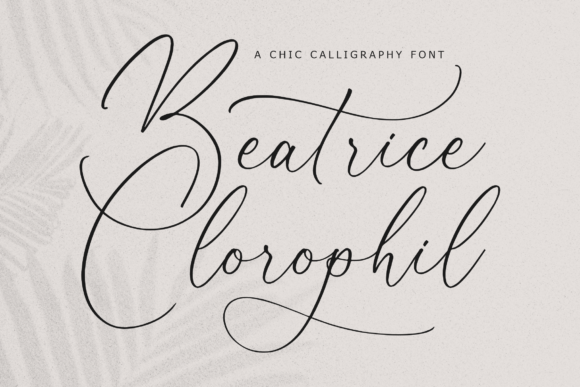
Welcome to the world of Beatrice Clorophil, the dazzling script font that will transform your interior design projects into breathtaking masterpieces. Step into a realm where elegance and creativity intertwine, creating a symphony of visual delight.
Beatrice Clorophil is not merely a font; it's an artistic expression, a testament to the power of typography to elevate your designs to new heights. Its neatly crafted curves and intricate details are a testament to the artistry and dedication of Storytype Studio, the masterminds behind this typographic gem.
With Beatrice Clorophil, you'll embark on a journey of limitless possibilities, where your imagination becomes the architect of stunning interiors. Whether you're crafting brochures, flyers, posters, or social media graphics, this font will effortlessly elevate your message, leaving an indelible mark on your audience.
Its versatility knows no bounds, as Beatrice Clorophil seamlessly adapts to a myriad of design styles, from classic and timeless to modern and contemporary. Let your creativity soar as you explore the endless applications of this font, transforming ordinary spaces into extraordinary realms of beauty.
But Beatrice Clorophil is more than just a tool; it's an experience. As you immerse yourself in its intricate lines and graceful shapes, you'll discover a newfound appreciation for the art of typography. Your designs will exude sophistication and charm, captivating the eyes and leaving a lasting impression wherever they're displayed.